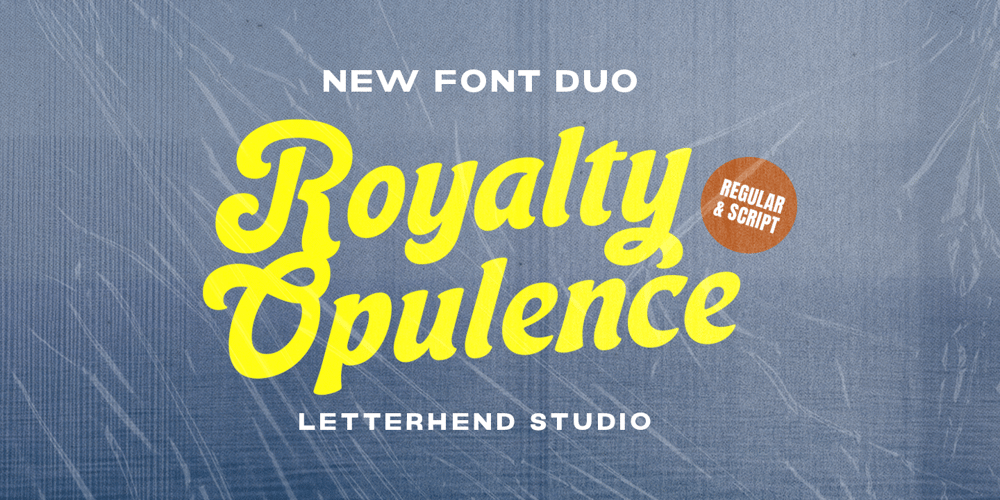
Royalty Opulence
Royalty Opulence font
Royalty Opulence Font Family was designed by Hendry Juanda and published by Letterhend. Royalty Opulence contains 2 styles and family package options. Introducing, Royalti Opulance – a standout bold script with simple sans in one typeface. This type of font perfectly made to be applied especially in logo, headline, signage and the other various formal forms such as invitations, labels, logos, magazines, books, greeting / wedding cards, packaging, fashion, make up, stationery, novels, labels or any type of advertising purpose.Features : Uppercase & lowercase Numbers and punctuation Alternates & Ligatures Multilingual PUA encoded